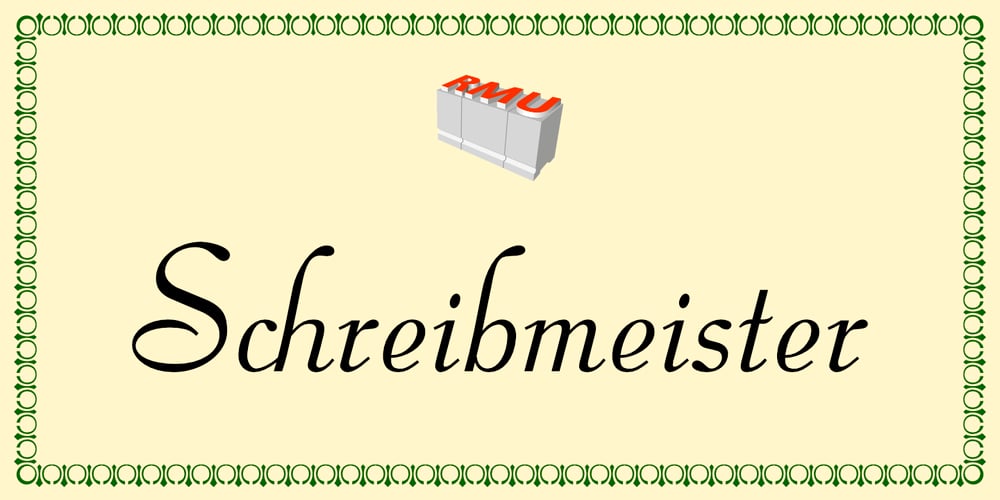
Schreibmeister Font Family was designed by Ralph M. Unger and published by RMU. Schreibmeister contains 1 styles and family package options. Schreibmeister is my interpretation of Arno Drescher’s design for Ludwig Wagner, Leipzig, completed in 1958. The letters X and x were improved as well as some ligatures. The letter E has an alternative, and the small d comes with two alternatives, of which one form can be reached by typing the partial different key.Generally it is recommended to activate both Standard and Discretionary ligatures.